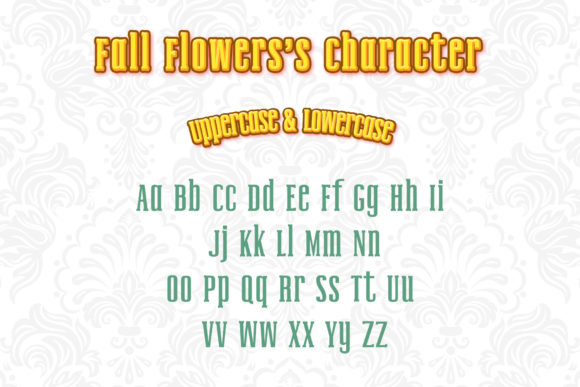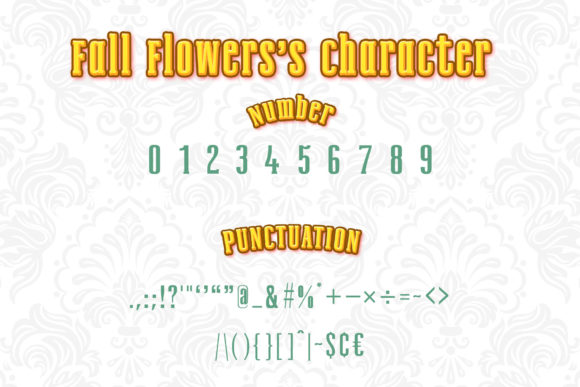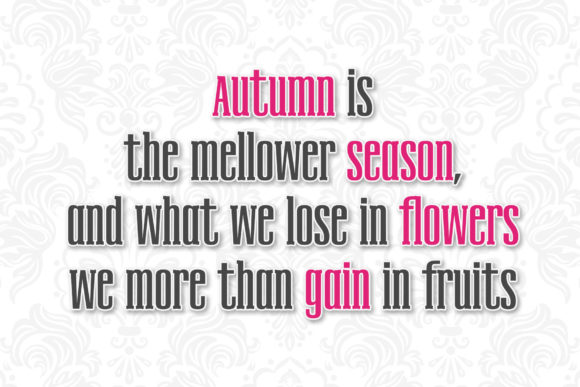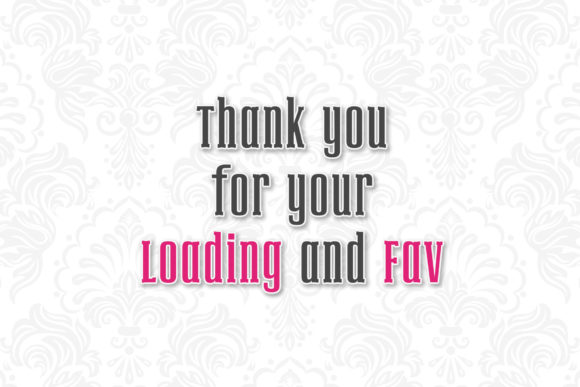
Introducing Fall Flowers Font: Elevate Your Designs with a Bold and Authentic Serif Style
Are you on the hunt for a font that embodies the warmth and coziness of the fall season? Look no further than Fall Flowers Font, a bold and authentic serif font that’s sure to capture your heart. With its incredibly stylish look, this font is perfect for designers and crafters seeking to add a touch of autumnal charm to their projects.
What Makes Fall Flowers Font So Special?
Fall Flowers Font is more than just a font – it’s an experience. Its bold and authentic serif style instantly evokes the feeling of crisp fall air, vibrant foliage, and cozy sweaters. Whether you’re designing a seasonal greeting card, a harvest-themed invitation, or a fall-inspired branding campaign, this font is sure to set the tone for a warm and inviting aesthetic.
Key Features of Fall Flowers Font
- Bold and Authentic Serif Style: Fall Flowers Font boasts a classic serif design with a bold twist, making it perfect for headlines, titles, and emphasis text.
- Stylish and Elegant: The font’s elegant lines and curves add a touch of sophistication to any design, making it ideal for high-end branding, editorials, and more.
- Highly Versatile: Use Fall Flowers Font for a wide range of design projects, from digital graphics to print materials, and from fall-themed designs to everyday typography.
- Easy to Read: Despite its bold style, Fall Flowers Font remains highly legible, making it perfect for body text, descriptions, and other written content.
How to Use Fall Flowers Font in Your Designs
Fall Flowers Font is incredibly easy to use and can be applied to a wide range of design projects. Here are a few ideas to get you started:
- Fall-themed designs: Use Fall Flowers Font to create stunning fall-themed designs, such as seasonal greeting cards, invitations, and social media graphics.
- Branding and logos: Add a touch of autumnal charm to your brand’s identity with Fall Flowers Font, perfect for harvest-themed businesses, restaurants, or cafes.
- Editorials and magazines: Use Fall Flowers Font to add a bold and stylish touch to your editorial designs, such as article titles, headings, and pull quotes.
- Digital graphics: Apply Fall Flowers Font to your digital graphics, such as website headers, social media posts, and online ads.
Tips and Tricks for Getting the Most Out of Fall Flowers Font
To make the most of Fall Flowers Font, here are a few tips and tricks to keep in mind:
- Experiment with colors: Fall Flowers Font looks stunning in warm, autumnal colors, but don’t be afraid to experiment with different color palettes to find the perfect fit for your design.
- Play with textures: Add depth and interest to your design by combining Fall Flowers Font with textures, such as paper, wood, or fabric.
- Mix and match: Combine Fall Flowers Font with other fonts to create a unique and eye-catching typography style.
Fall Flowers Font is a bold and authentic serif font that’s sure to capture your heart. With its incredibly stylish look and highly versatile design, this font is perfect for designers and crafters seeking to add a touch of autumnal charm to their projects. Whether you’re designing a seasonal greeting card, a branding campaign, or a digital graphic, Fall Flowers Font is the perfect choice. So why wait? Fall in love with Fall Flowers Font and elevate your designs to new heights!